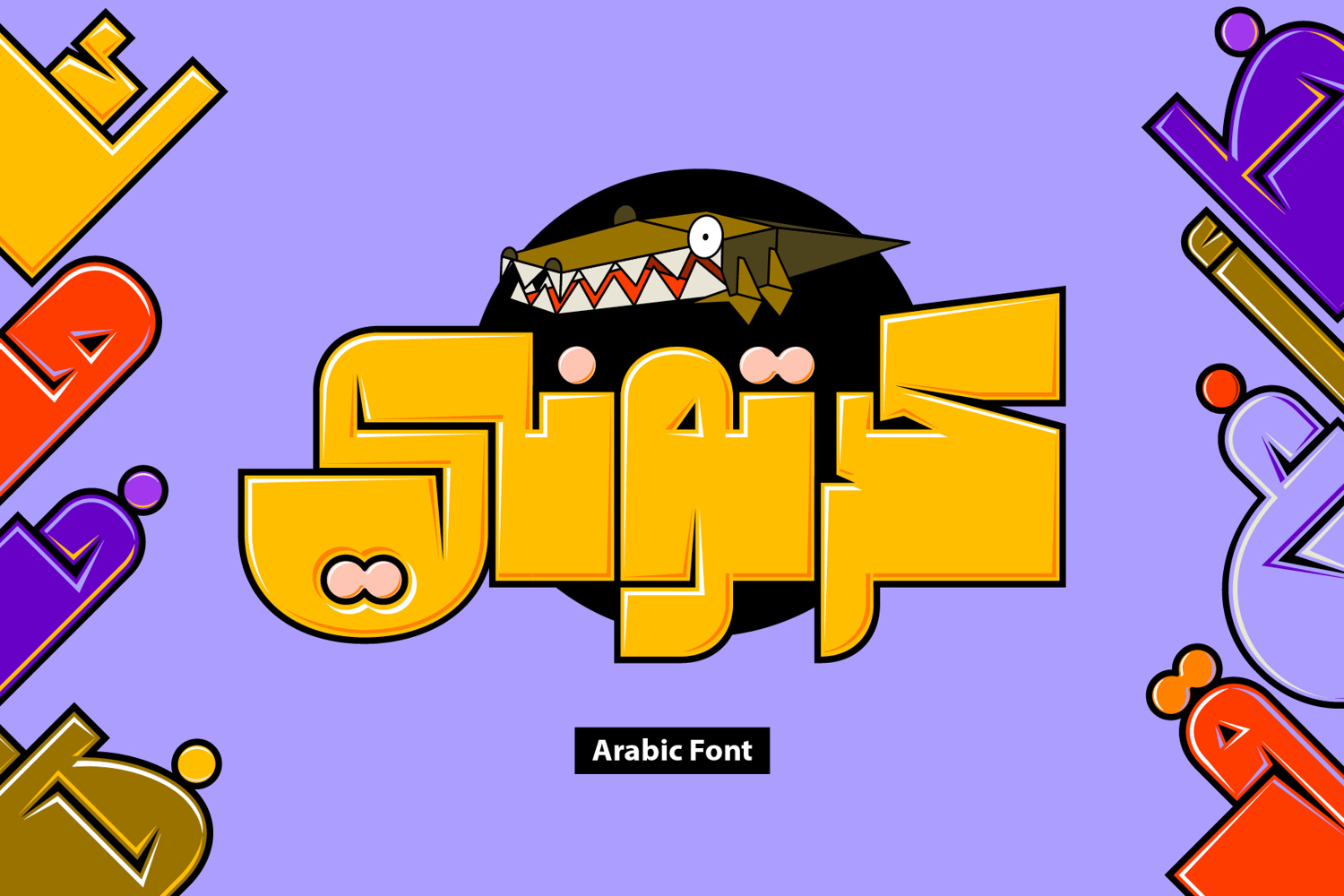
Cartoony - Arabic Color Font
Cartoony is an Arabic display font with an edgy, bold personality and heavy letterform construction. It is an OpenType‑SVG color font available in five distinct styles, along with a standard OTF version. Cartoony is an ideal choice for comics, expressive typography, branding, TV graphics, advertising, and mobile applications. It supports Windows 7 and later, as well as macOS High Sierra and above.